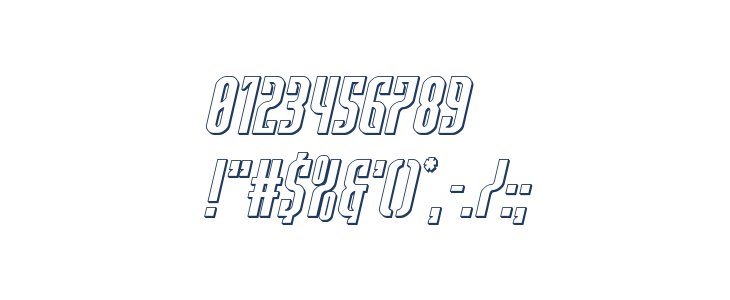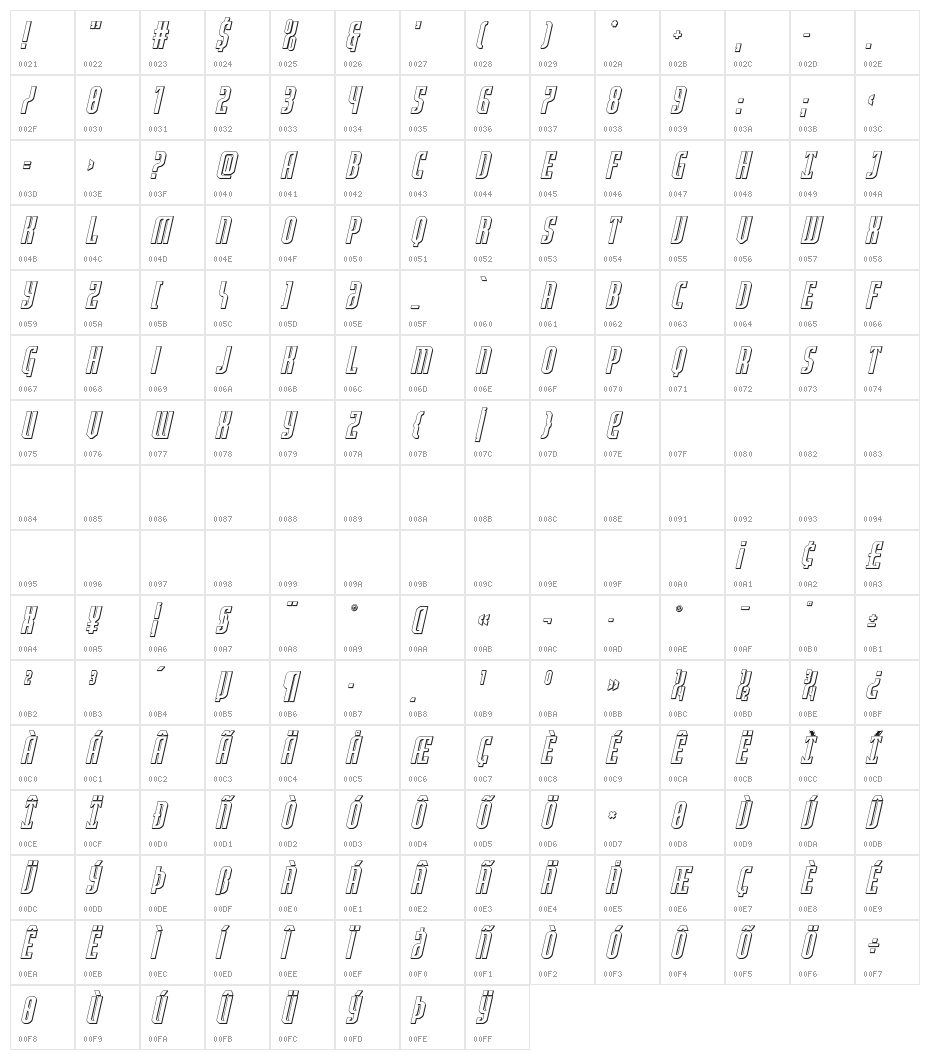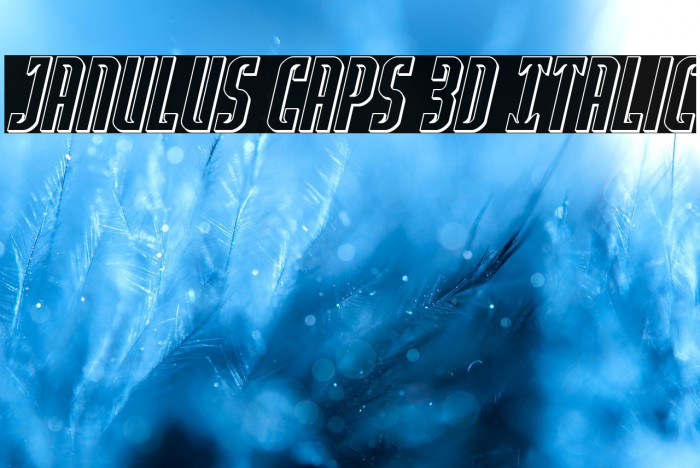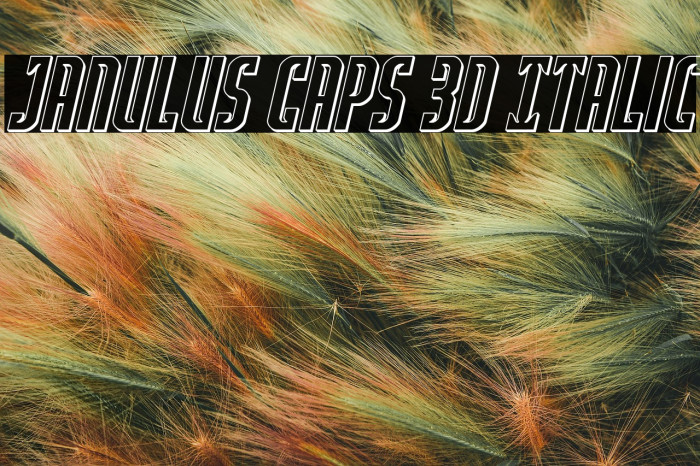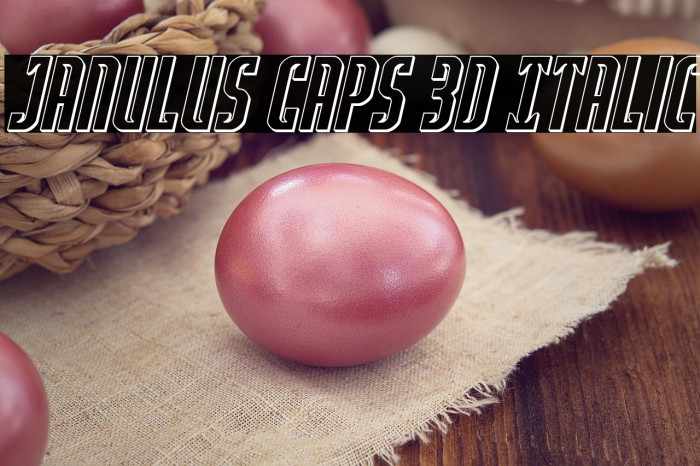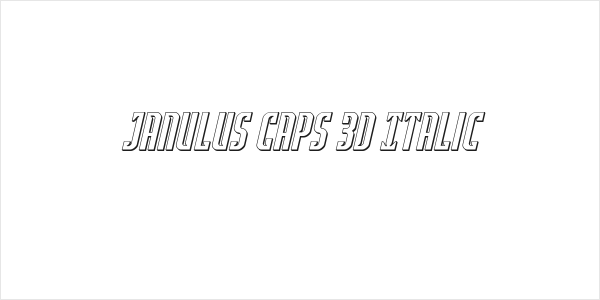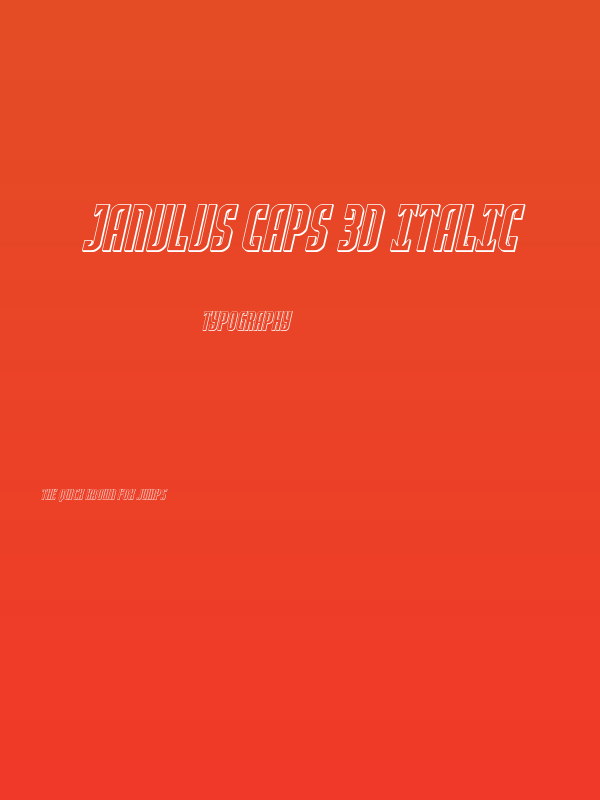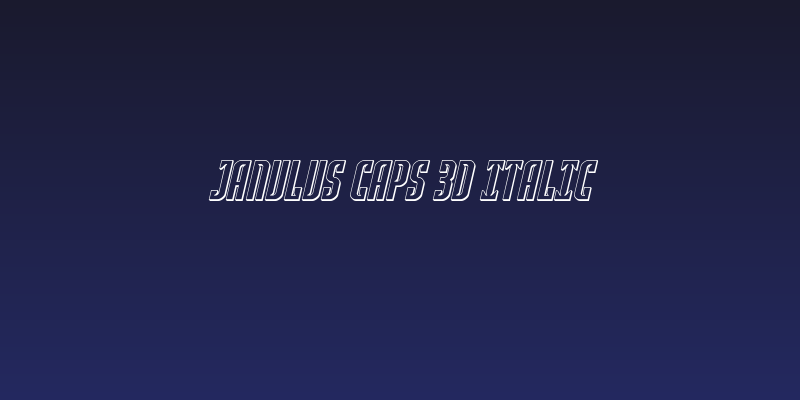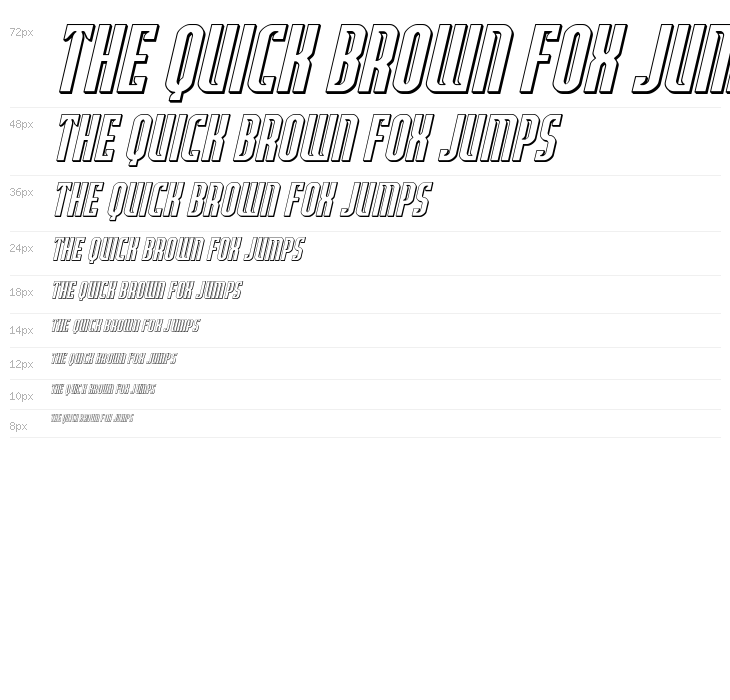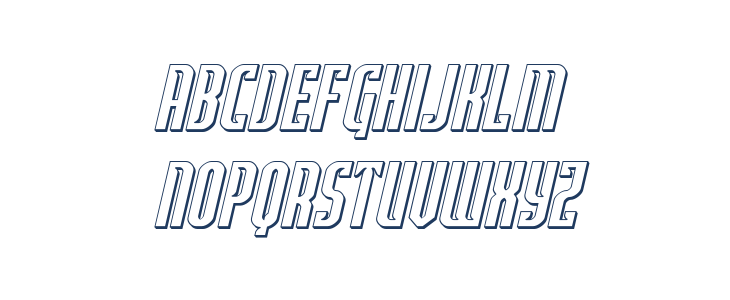
Janulus Caps 3D Italic Font
Janulus Caps 3D Italic Description
This font features a bold, three-dimensional appearance with an italic slant, creating a dynamic and modern look. The characters are outlined, giving them a distinct, shadowed effect that enhances their visual impact. The uppercase letters are uniform in height, with sharp angles and clean lines that contribute to a futuristic aesthetic. The numbers and special characters maintain the same stylistic elements, ensuring consistency across all glyphs. This font's unique style makes it suitable for projects that require a strong, eye-catching typeface.
| Proposed Projects | Ideal for branding, posters, video game graphics, and any project needing a striking, futuristic typeface. |